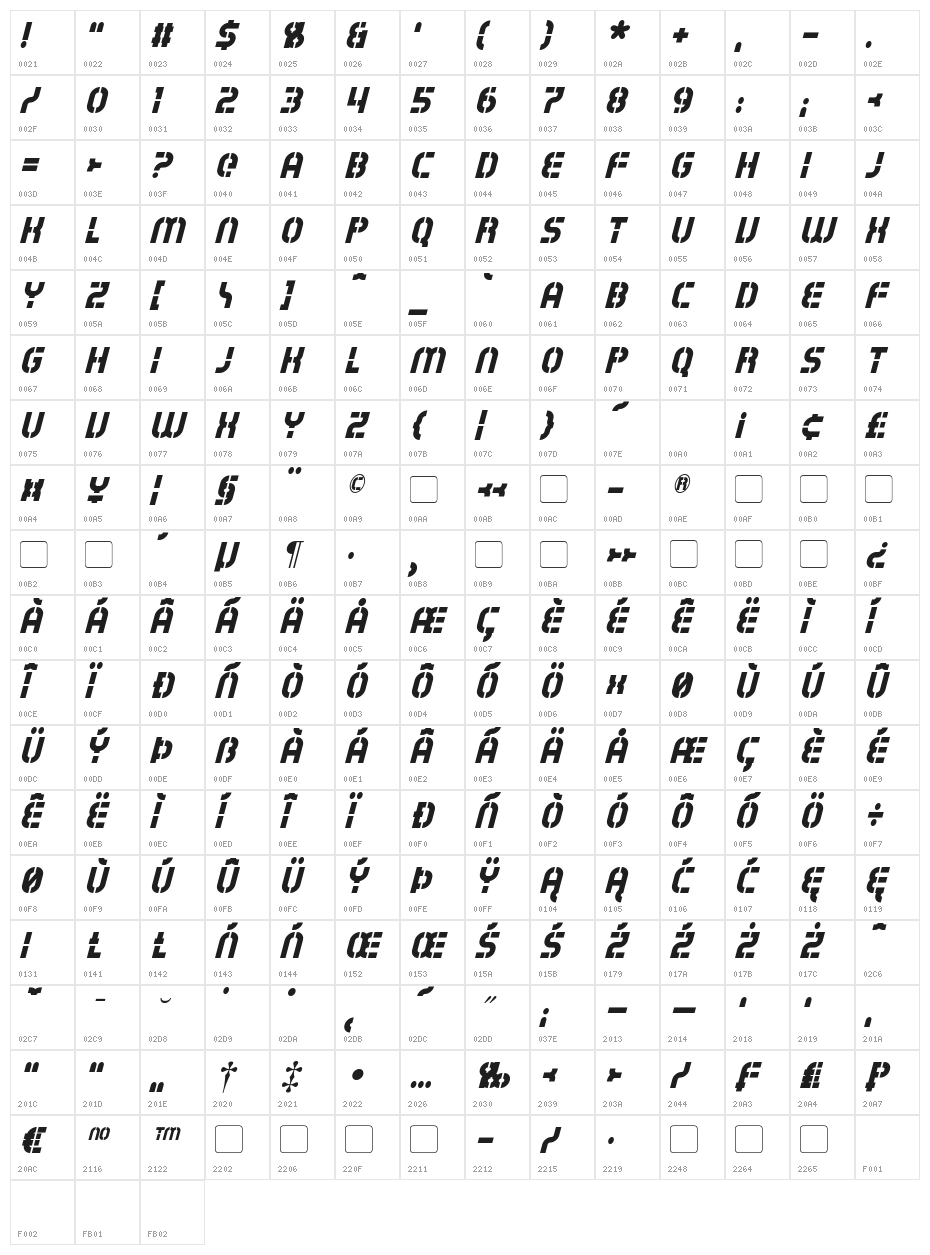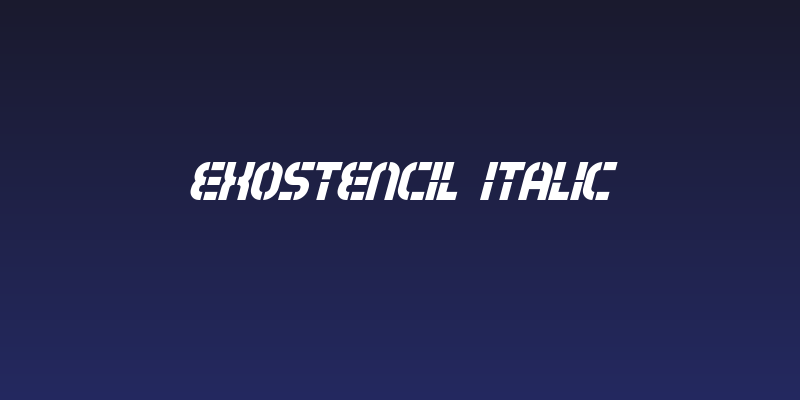
Exostencil Italic Font
Exostencil Italic Description
This font features a bold, italicized style with a distinct stencil effect, characterized by breaks in the strokes that create a dynamic and industrial appearance. The letters are slanted, giving a sense of motion and urgency, while the bold weight ensures strong visibility and impact. The design is modern and edgy, suitable for projects that require a contemporary and robust aesthetic. The characters are evenly spaced, maintaining readability despite the unique stencil cuts. This font is ideal for creating eye-catching headlines, posters, and branding materials that demand attention.
| Proposed Projects | Ideal for branding, posters, headlines, and any design needing a bold, modern touch. |